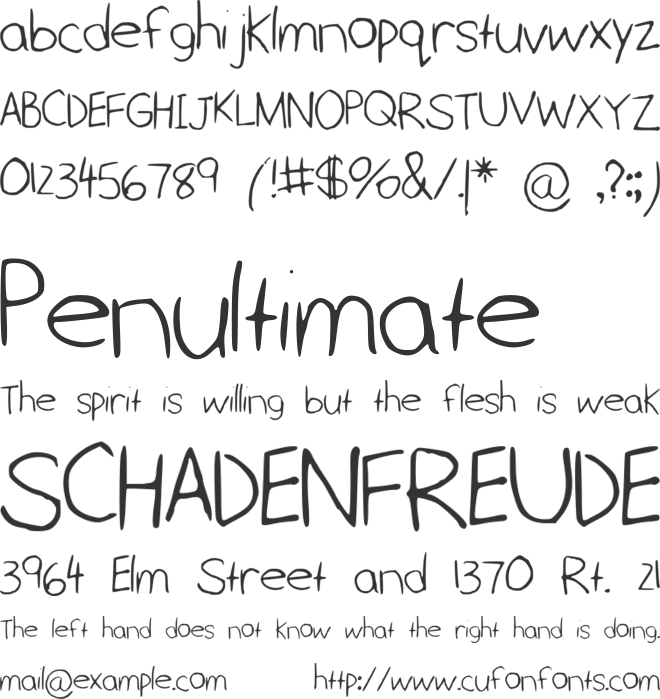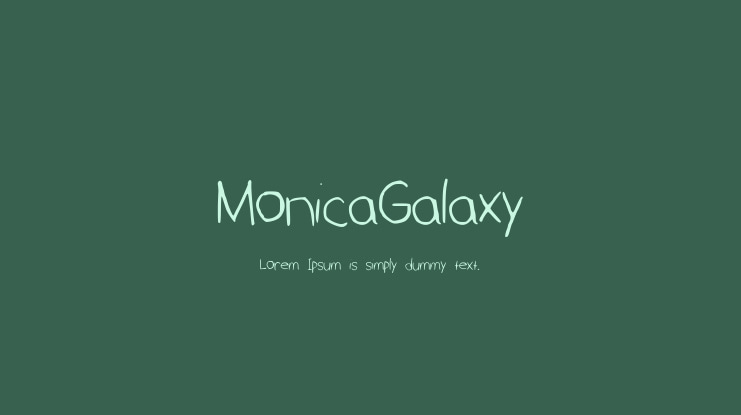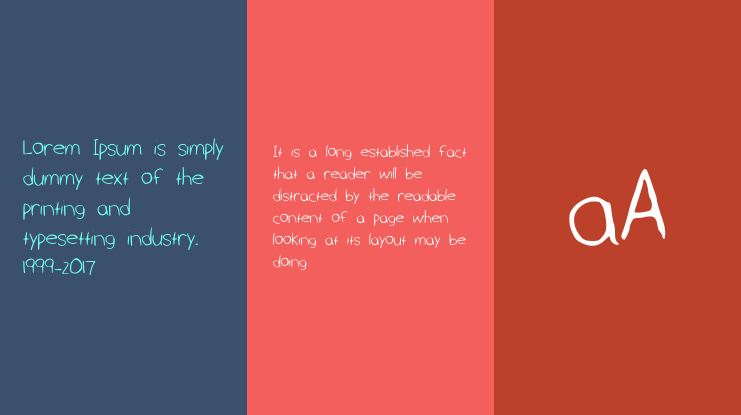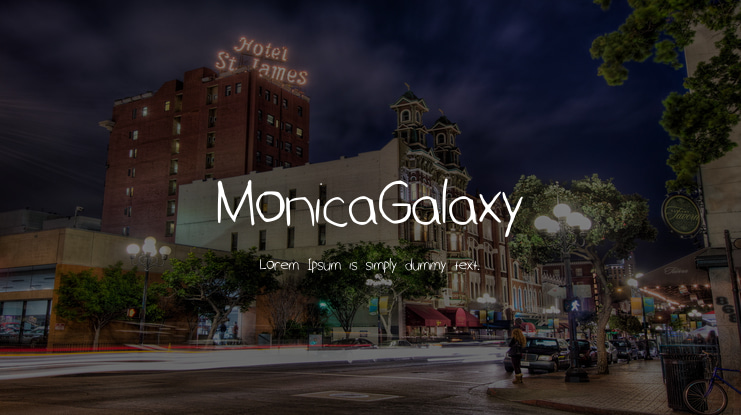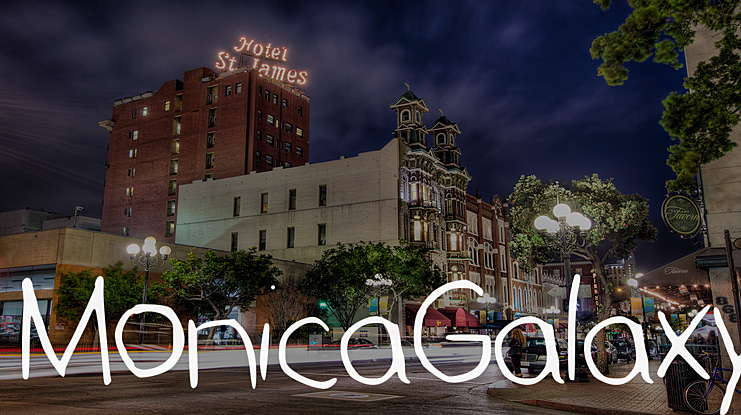
MonicaGalaxy Font
This is my first handwritten font. It is free for personal use. It includes the alphabet from A-Z, numbers, symbols, and optional letters.